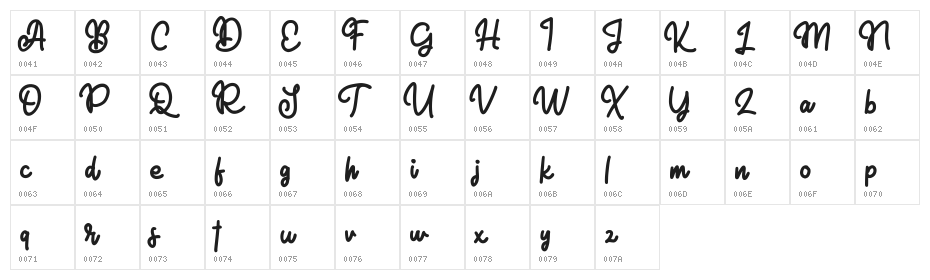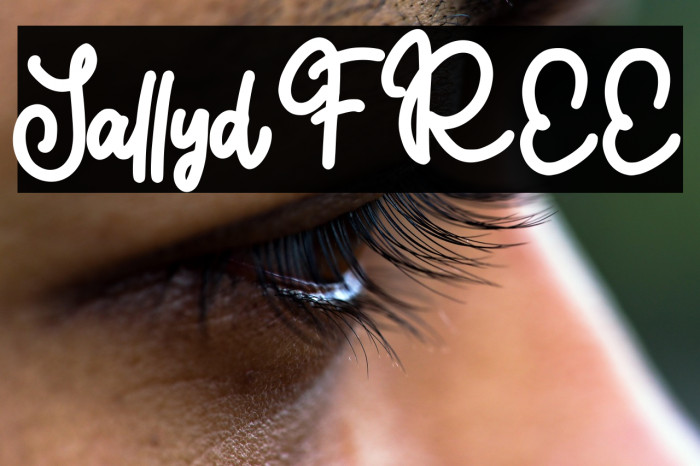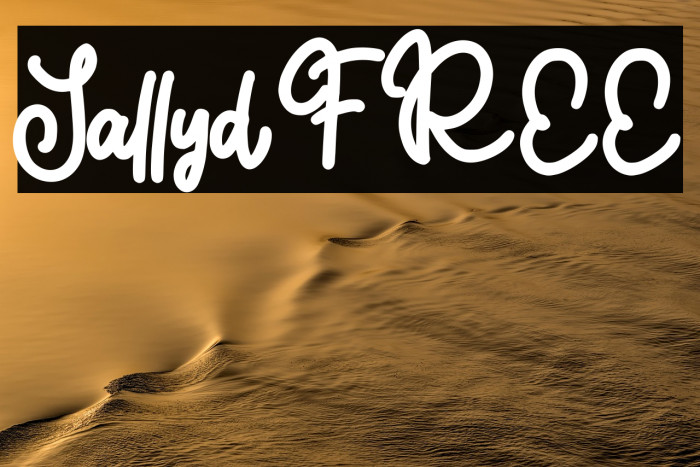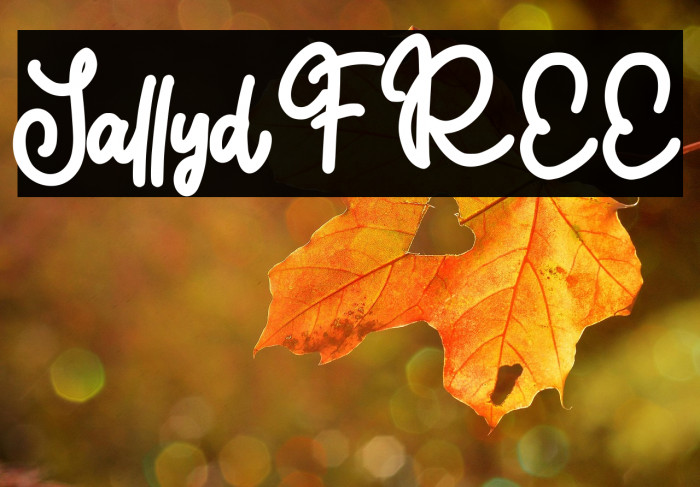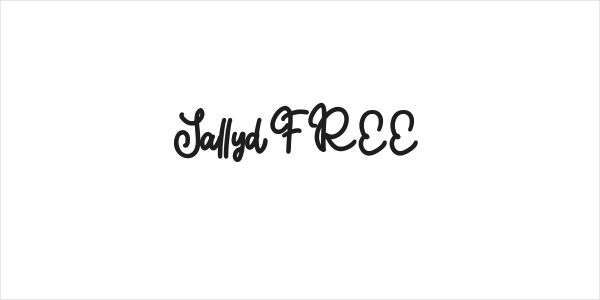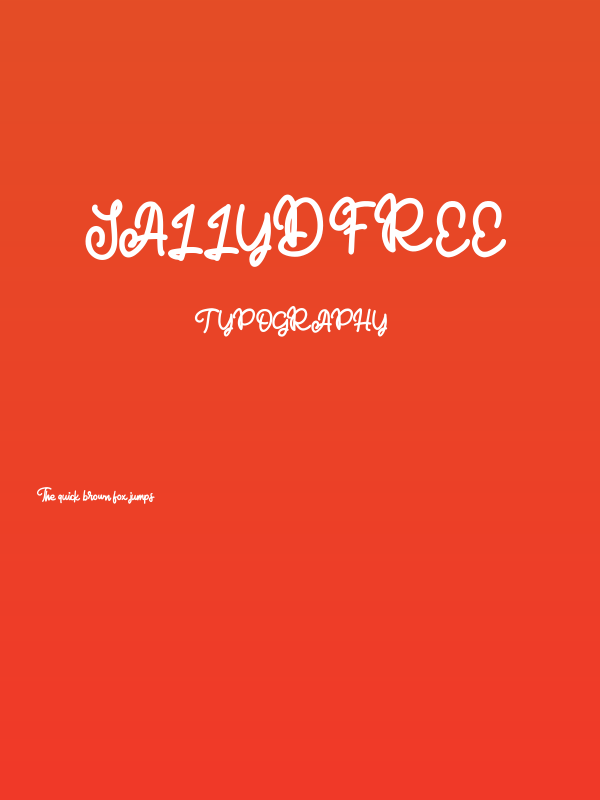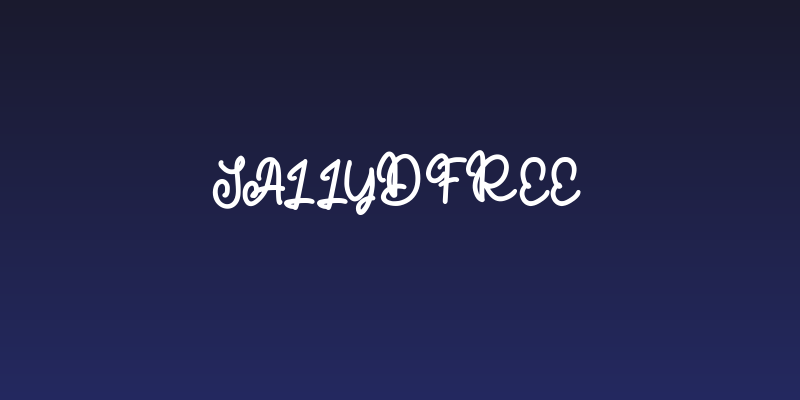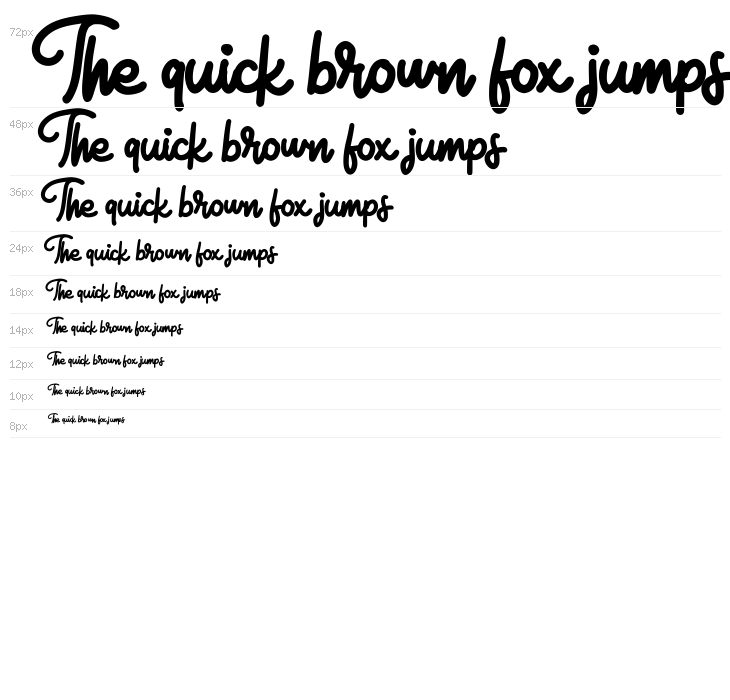
Sallyd FREE Font
Sallyd FREE Description
This font features a playful and energetic script style, characterized by its flowing, cursive letters that connect seamlessly. The uppercase letters are bold and prominent, while the lowercase letters maintain a consistent rhythm with rounded edges and smooth curves. The font exudes a sense of casual elegance, making it suitable for a variety of creative applications. Its legibility is enhanced by the moderate spacing between characters, ensuring clarity in both small and large sizes. The overall design is modern yet retains a touch of classic script charm.
| Proposed Projects | Ideal for greeting cards, invitations, branding, and social media graphics. |